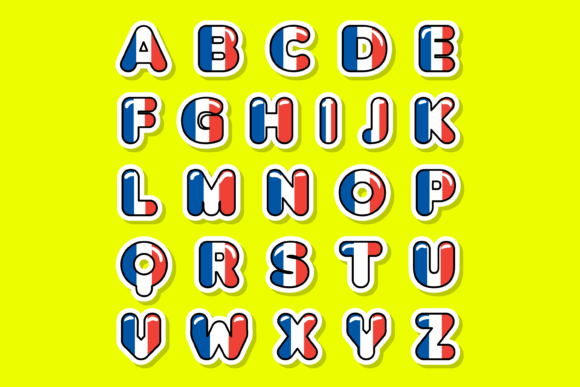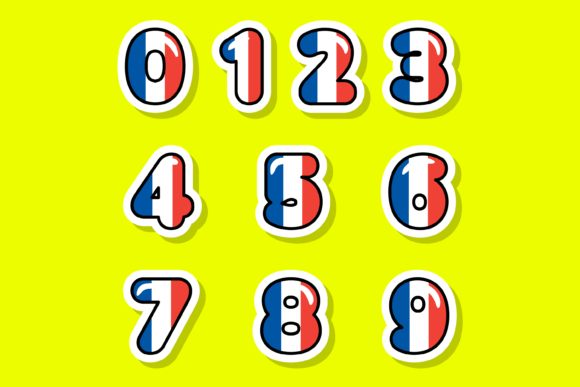
The Ultimate Guide to France Font: Adding a Touch of Elegance to Your Designs
I still remember the time I was working on a project for a French-themed client, and I was struggling to find the perfect font that captured the essence of the French flag. The client was specific about wanting a font that was not only stylish but also reflected the country’s iconic colors. After hours of searching, I stumbled upon the France Font, and it was love at first sight! 💕
Designed in the style of the French Flag, this color font has been a game-changer for my designs, and I’m excited to share its awesomeness with you. Whether you’re a designer, crafter, or creative hobbyist, France Font is an incredibly cool addition to your font collection.
An Honest Review of France Font
What I Love About France Font ✨
- ✅ Unique color scheme inspired by the French Flag
- ✅ Perfect for custom designs, DIY crafts, and creative projects
- ✅ Stylish and elegant, adding a touch of sophistication to any design
- ⚠️ Some users may find the color scheme too bold or overpowering
The Backstory of France Font
France Font was designed by a team of creatives who wanted to capture the essence of the French Flag in a unique and stylish font. Inspired by the country’s rich history and culture, they created a font that would reflect the French spirit: elegant, sophisticated, and bold. The font was designed to be versatile, making it perfect for various design projects, from custom designs to DIY crafts.
Q: What is France Font?
A: France Font is a color font designed in the style of the French Flag, perfect for adding a touch of elegance and sophistication to your designs.